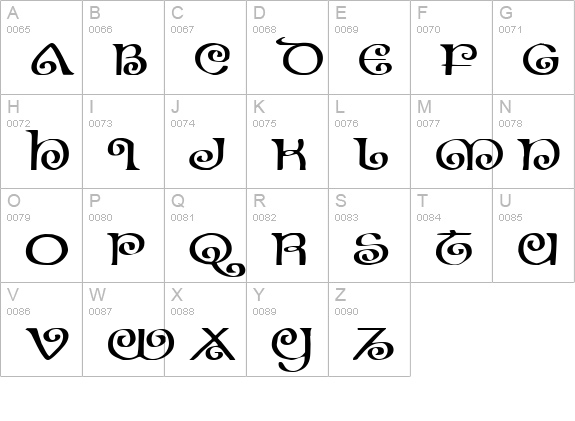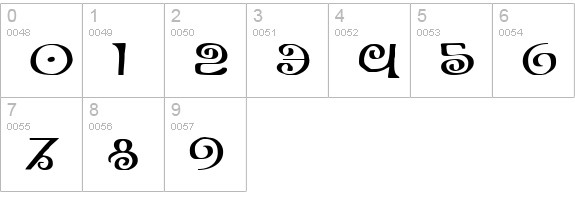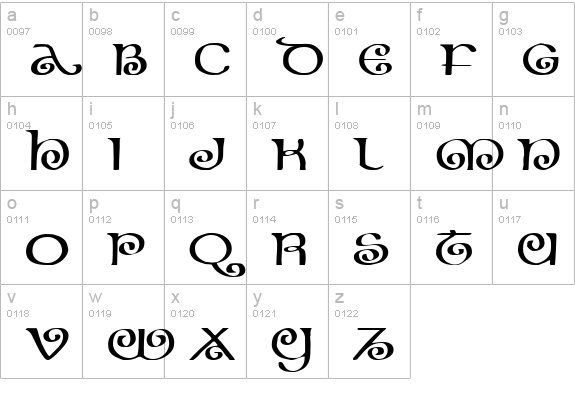
The Shire Expanded Font Details
The Shire Expanded is a distinctive, extended-width variant in the The typeface family \xE2\x80\x94 well suited to design and typography projects.
The Shire Expanded font is a whimsical and enchanting typeface that captures the essence of a mystical land filled with lush greenery and quaint hobbit holes. Its elongated and elegant letterforms evoke a sense of adventure and magic, making it the perfect choice for projects that require a touch of fantasy and wonder. This unique font is not only visually captivating but also highly versatile, suitable for a wide range of design applications including book covers, posters, invitations, and more. With its intricate details and graceful curves, The Shire Expanded font adds a touch of charm and sophistication to any project. Best of all, The Shire Expanded font is available for free download at FontsMarket.com, making it easily accessible to designers and enthusiasts looking to add a touch of whimsy to their creations. Whether you're a fan of fantasy literature or simply appreciate beautiful typography, The Shire Expanded font is sure to inspire and delight.